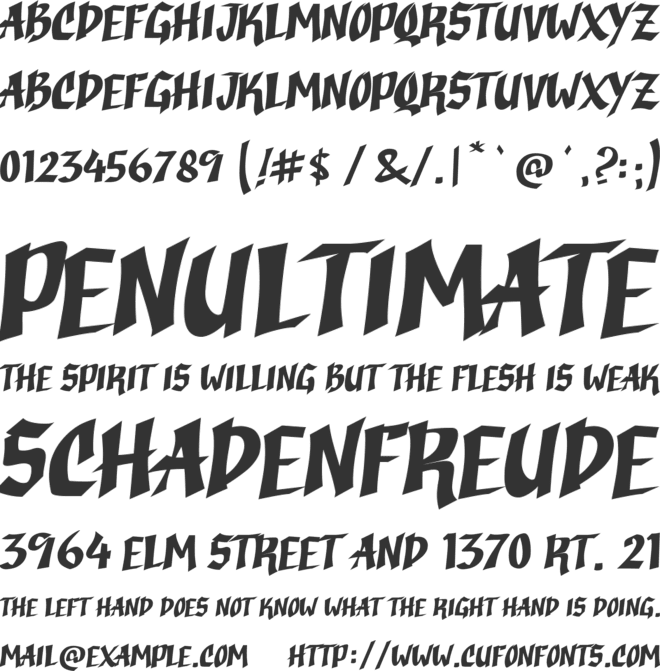
Lobster Cracker Font
Introducing Lobster Cracker: a whimsical, handwritten marker font brimming with comical and anime flair. Perfect for adding a playful touch to any project, its bold strokes and quirky characters will capture attention and spark joy. Elevate your designs with Lobster Cracker's unique, animated personality—it's the font that's impossible to ignore!